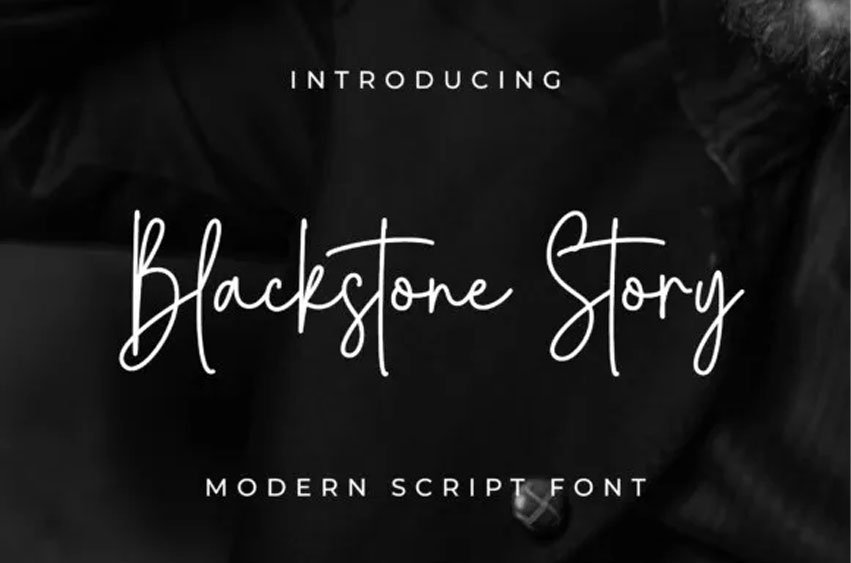
Blackstone Story Font
Blackstone Story Font is a beautiful and light handwritten font with a unique feel and a stunning impact.
It will add a luxury spark to any design project that you wish to create!